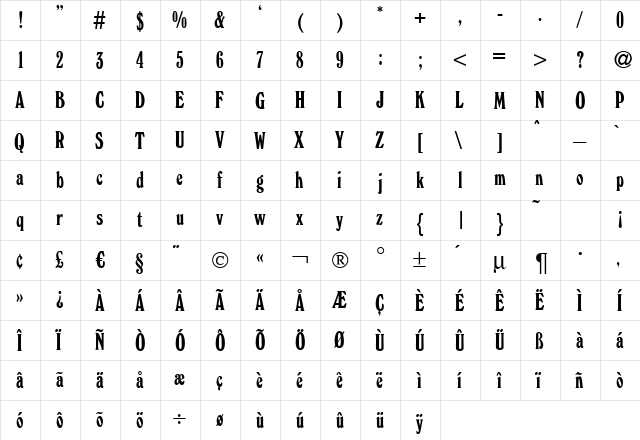
W730-Roman-Cd Regular
Design Context for W730-Roman-Cd Typeface
W730-Roman-Cd takes a measured approach to typography — its balanced proportions and neutral character make it a reliable workhorse for both digital and print work.